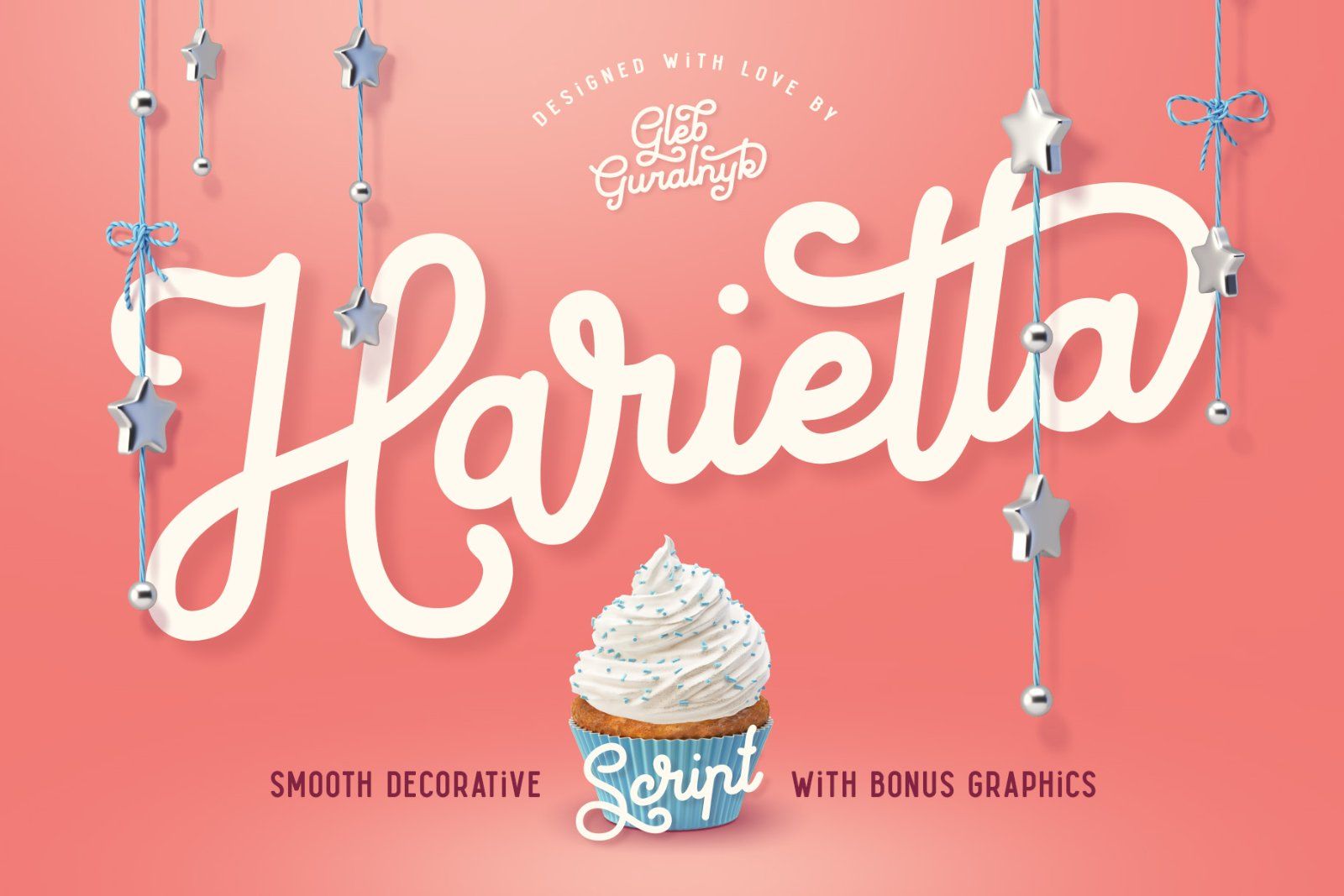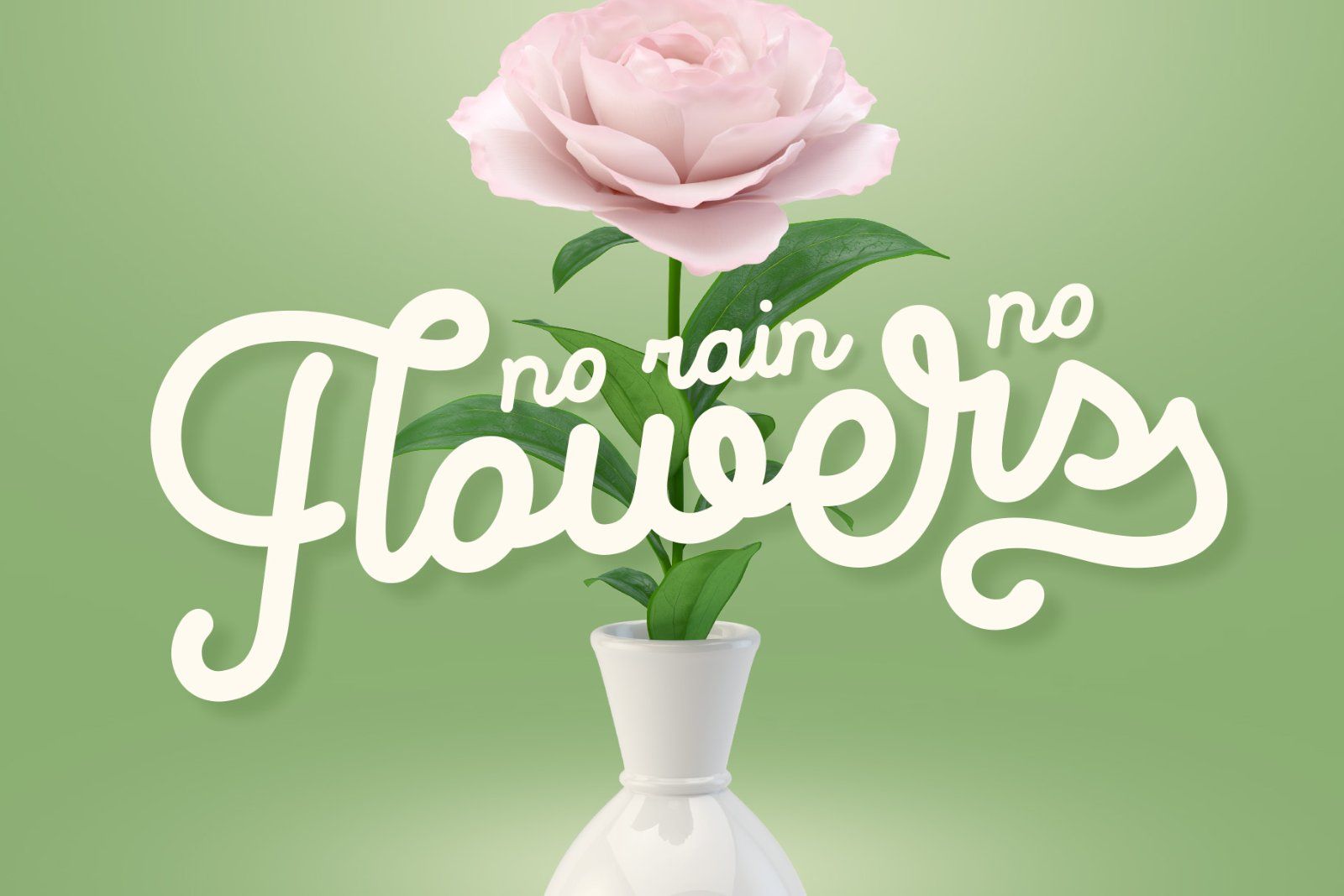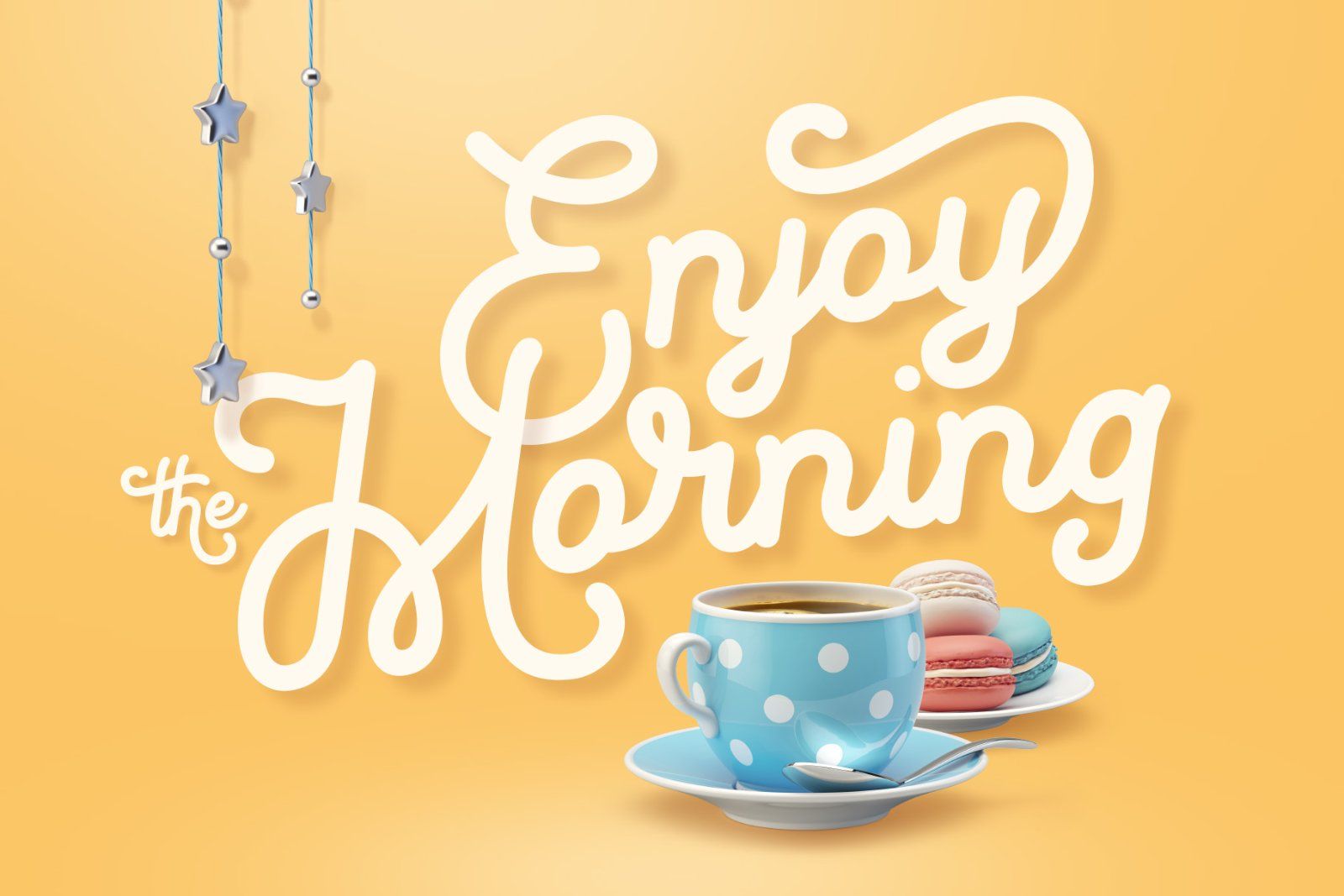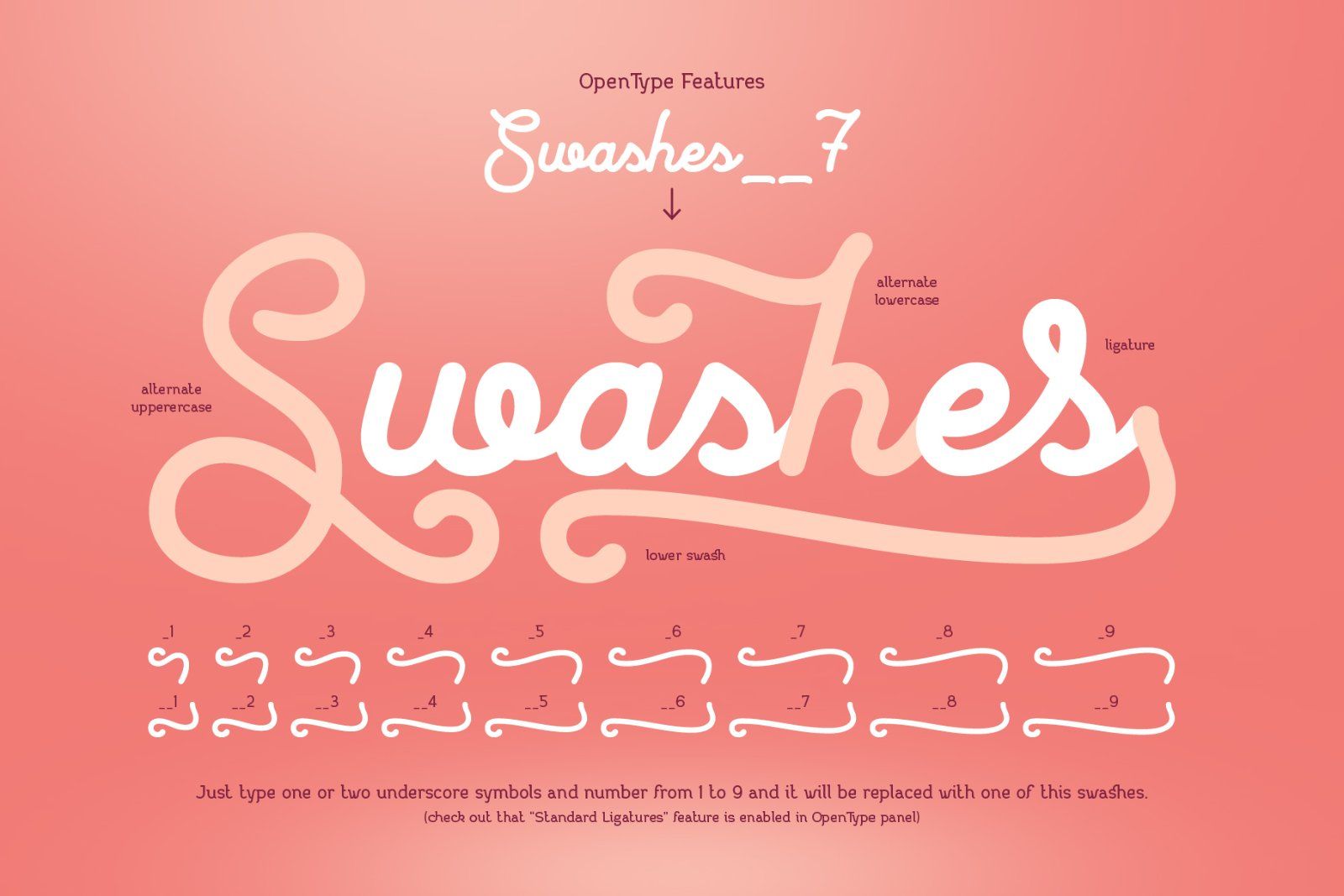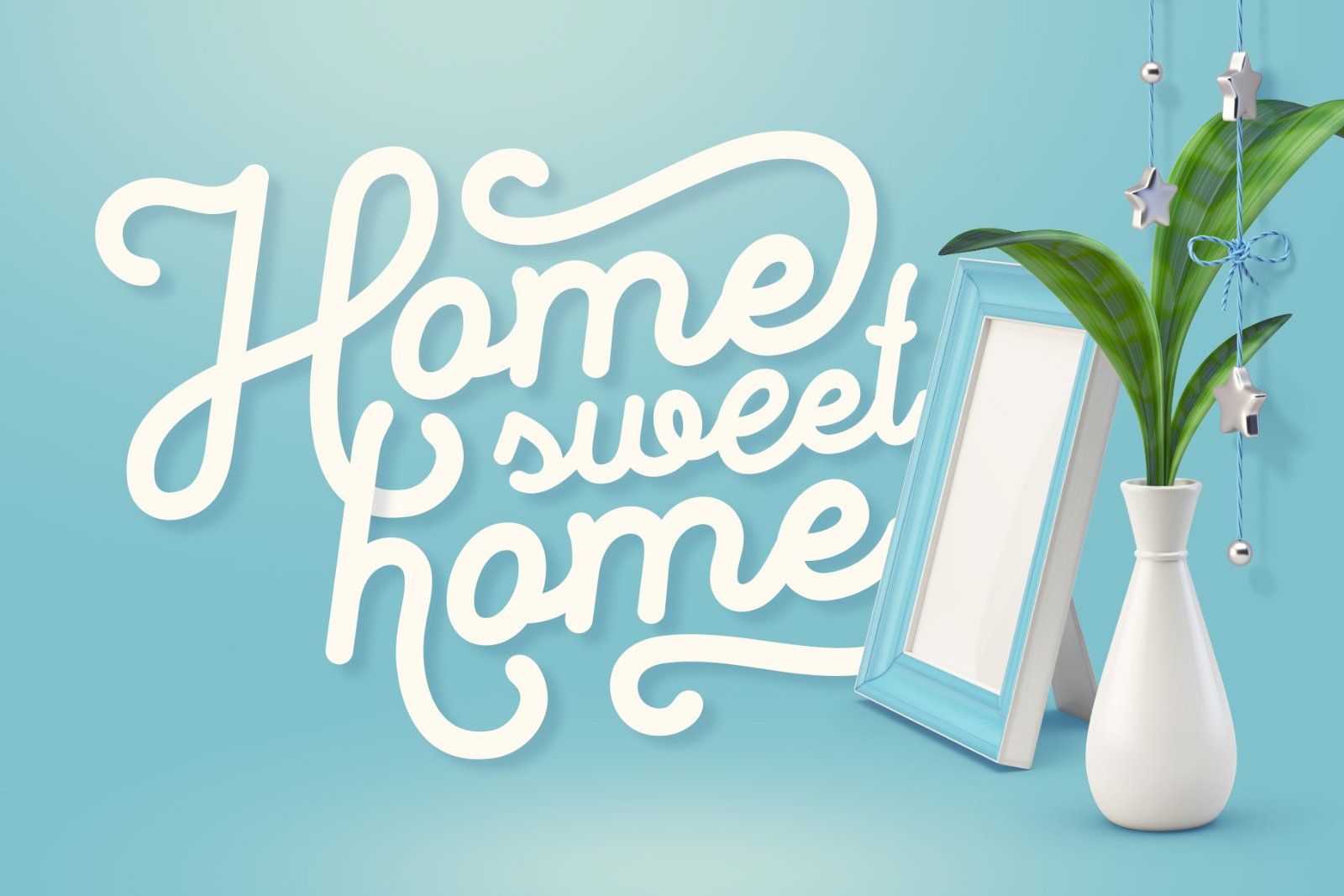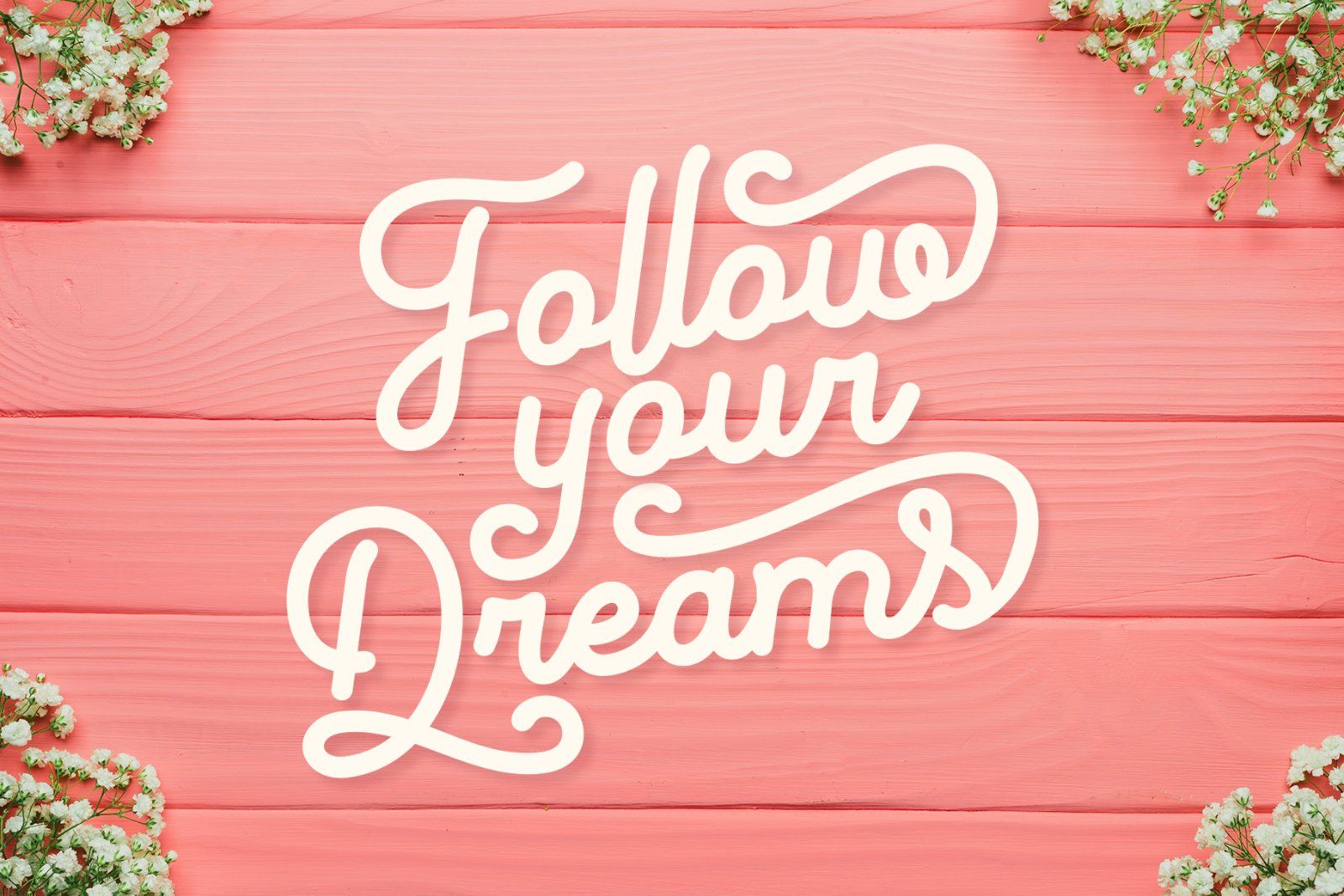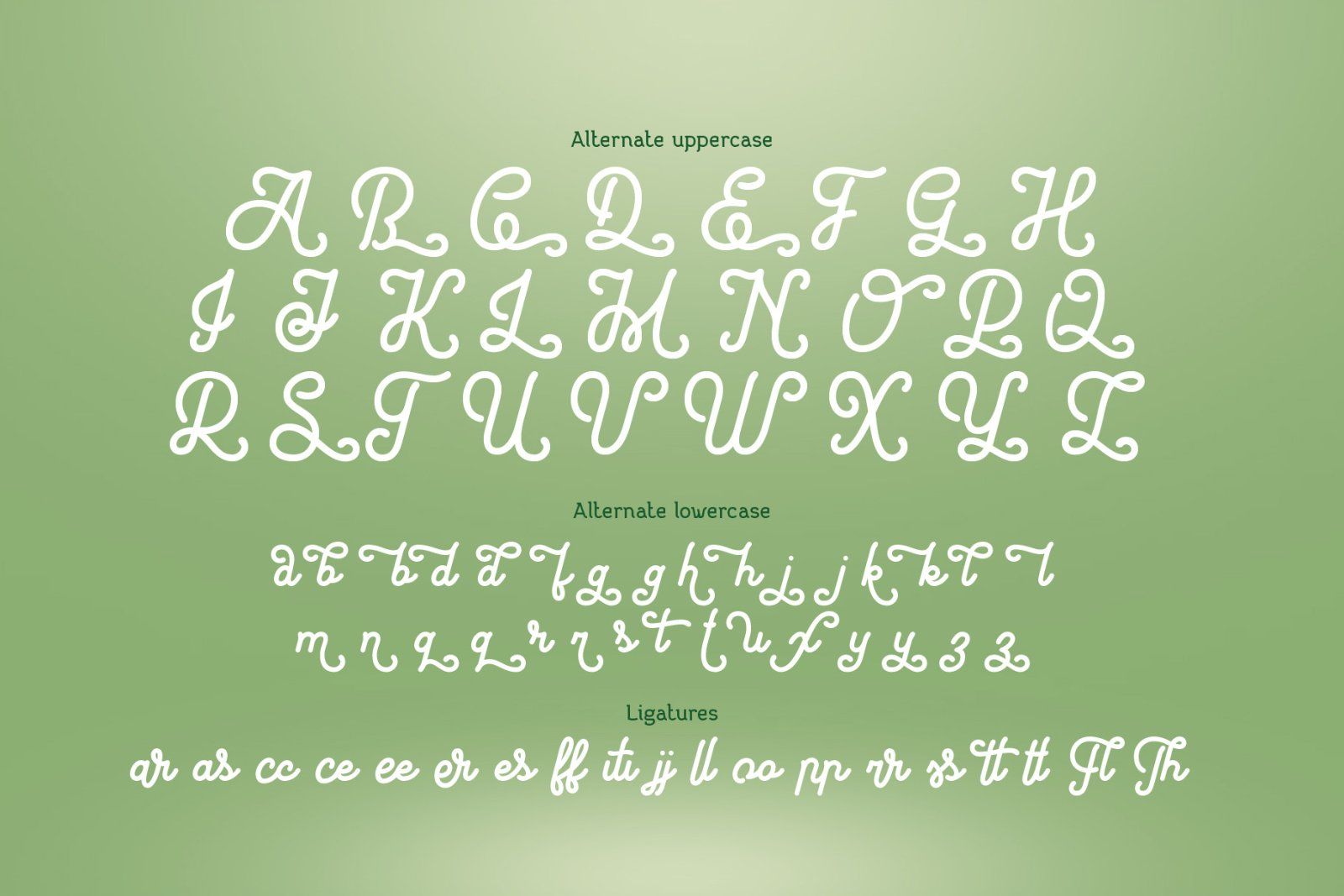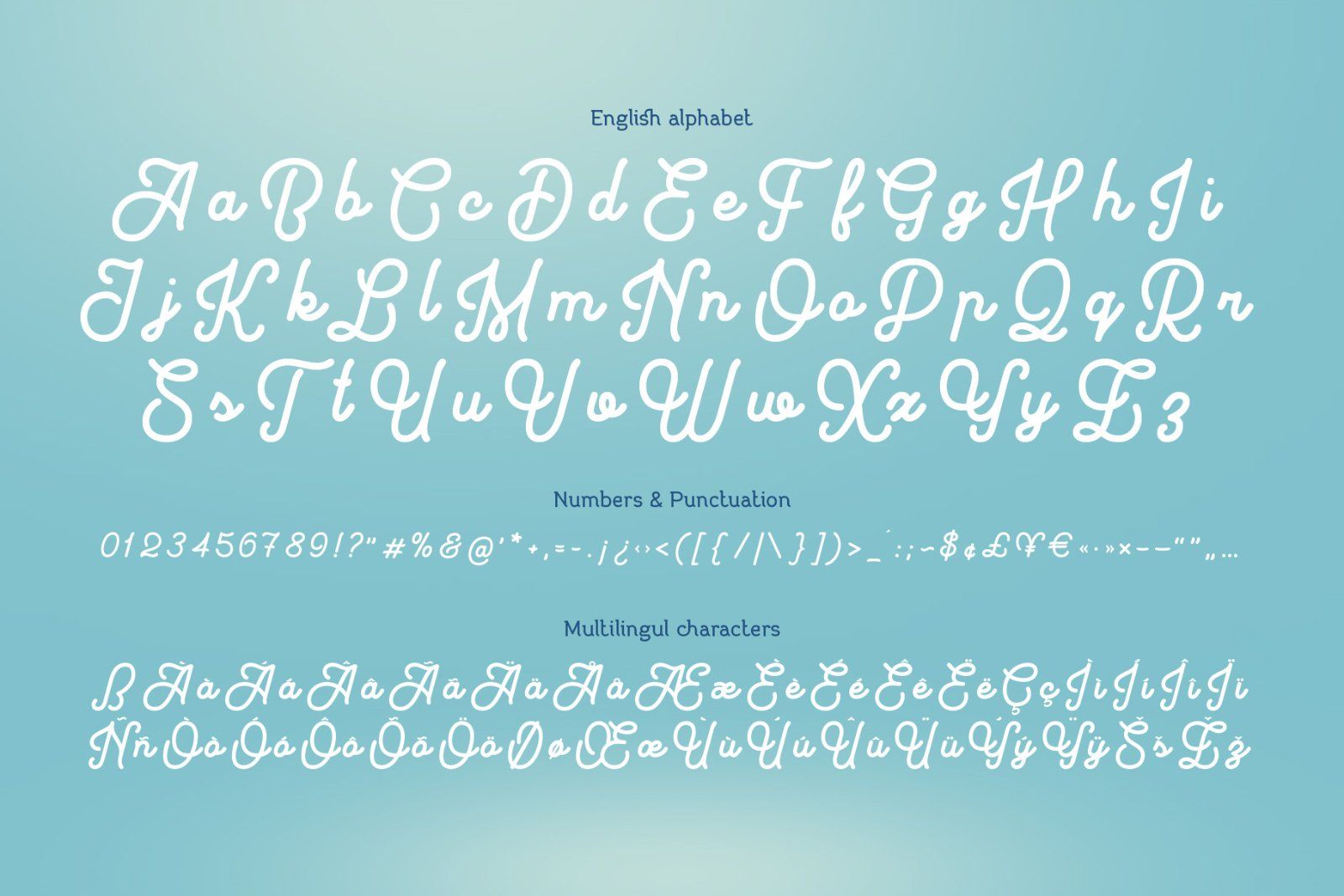
Hi, introducing a decorative script font named Harietta. It's a smooth font with rounded shapes and lots of OpenType features. Harietta font has lots of additional glyphs (Ligatures, Stylistic Alternates, Swashes), that will help you to create a unique lettering composition.
To create a swash in the end of the word just type one or two underscore symbols and number from 1 to 9 and it will be replaced with one of the swashes (check out that “Standard Ligatures” feature is enabled in OpenType panel).